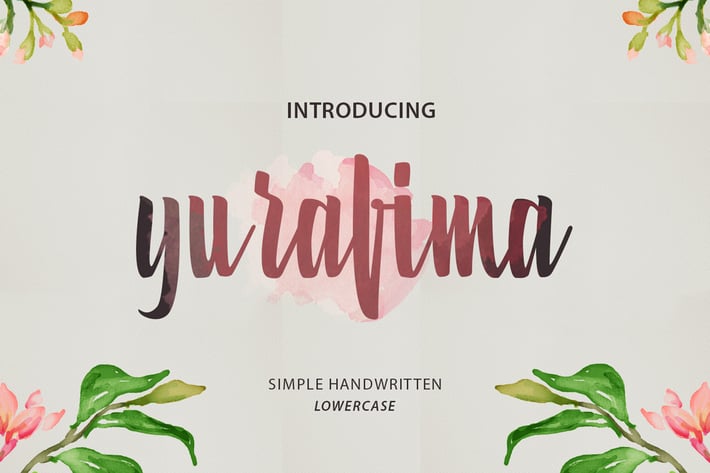
Yurafima - Simple Handwritten Font
Yurafima font only lowercase, perfect for: poster, wedding, branding, logo, fashion, apparel, letter, invitation, stationery, etc.